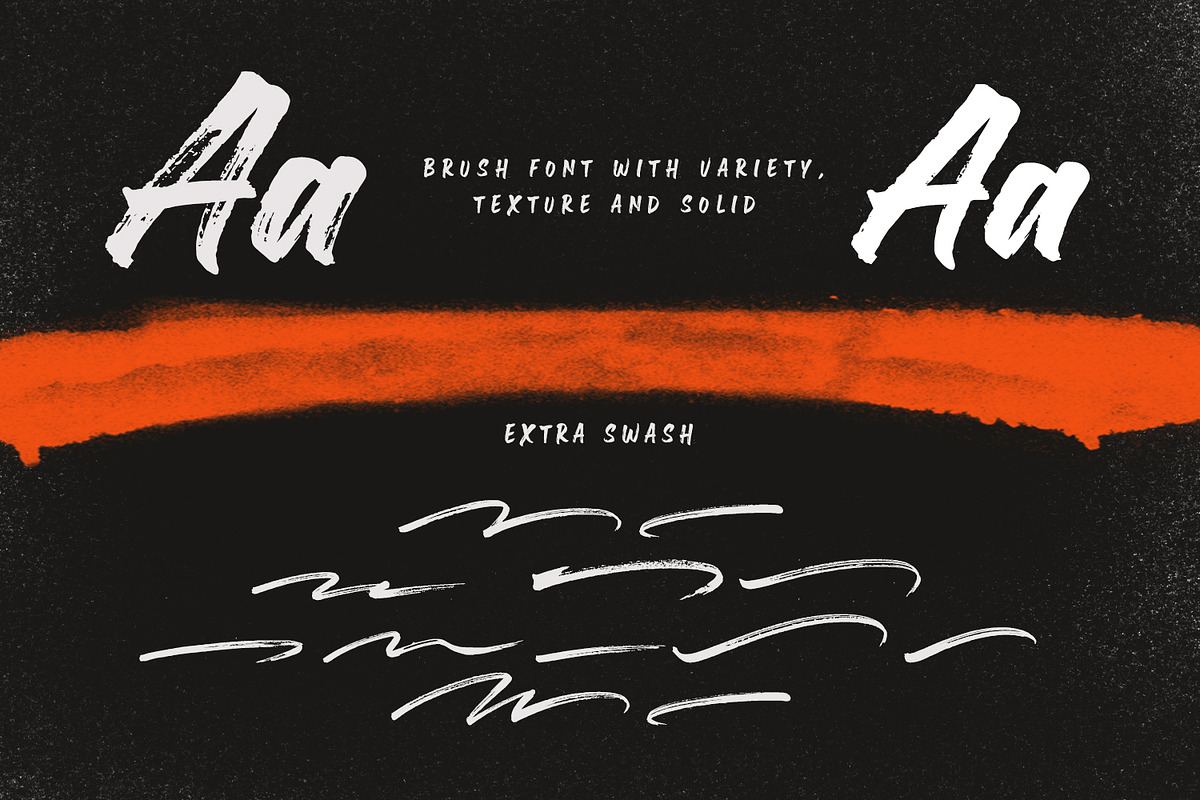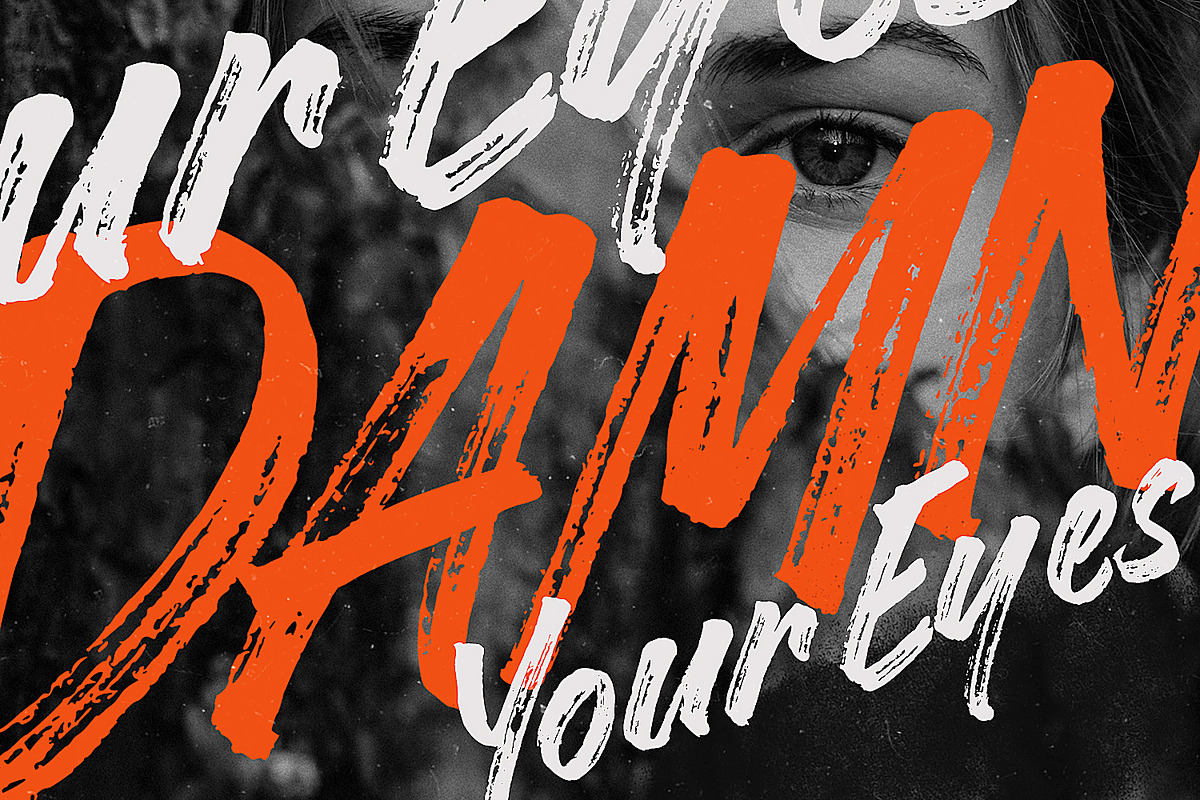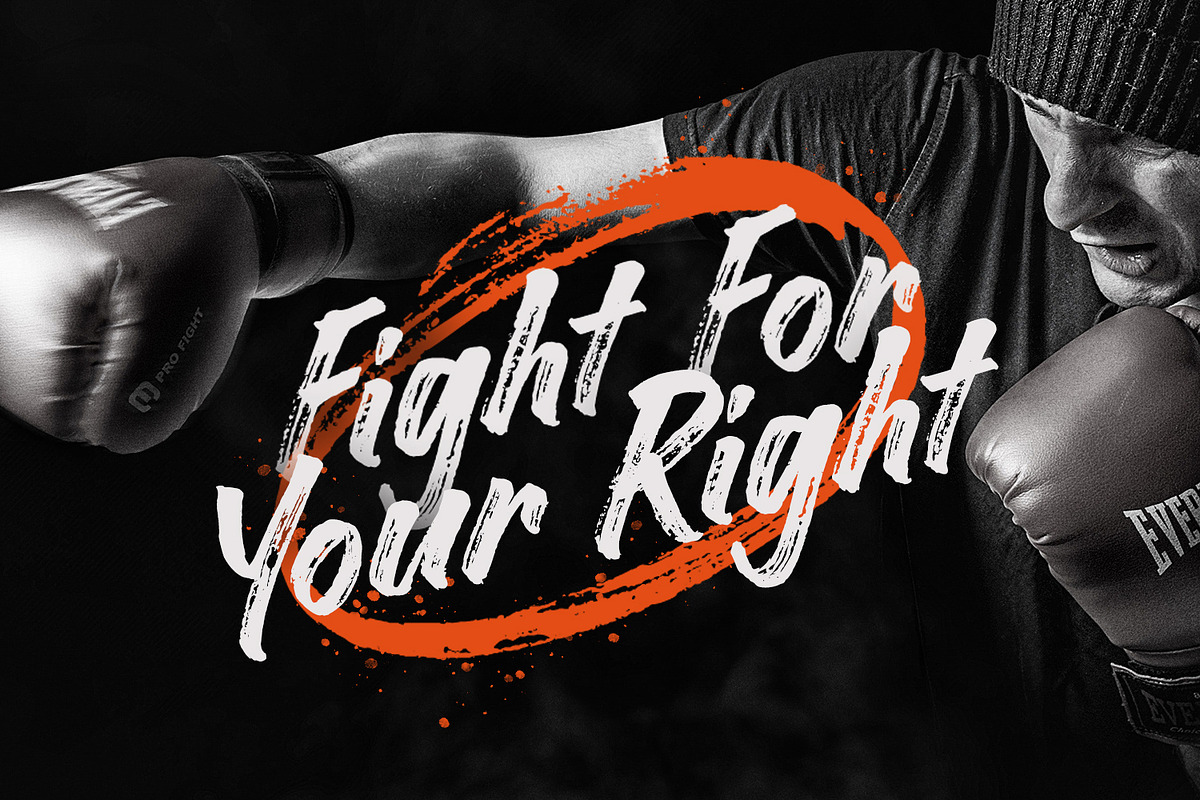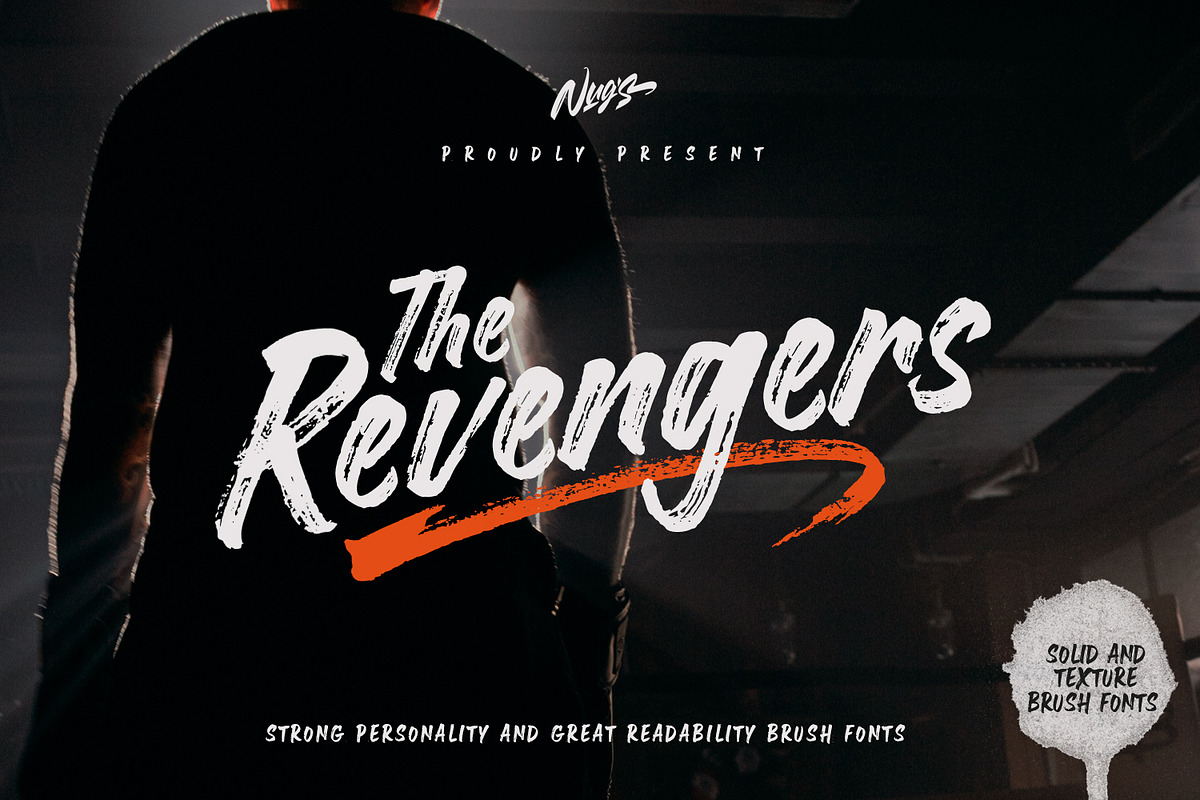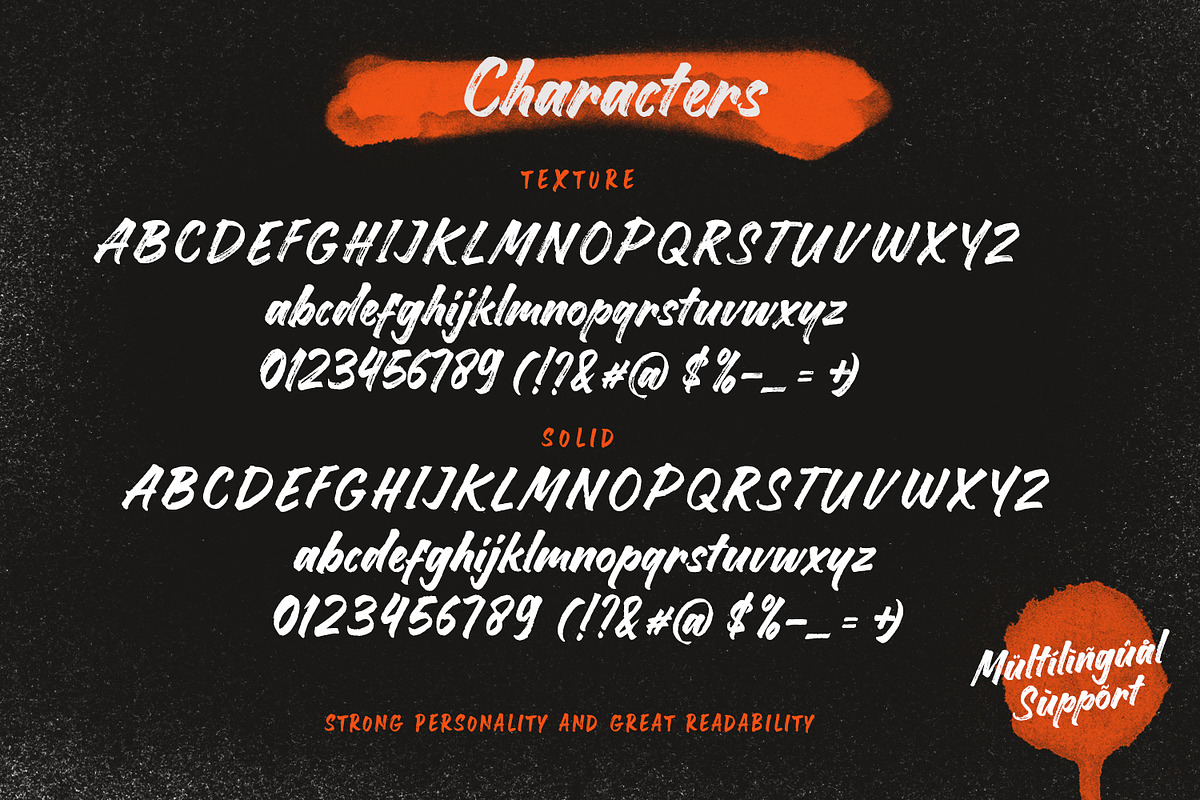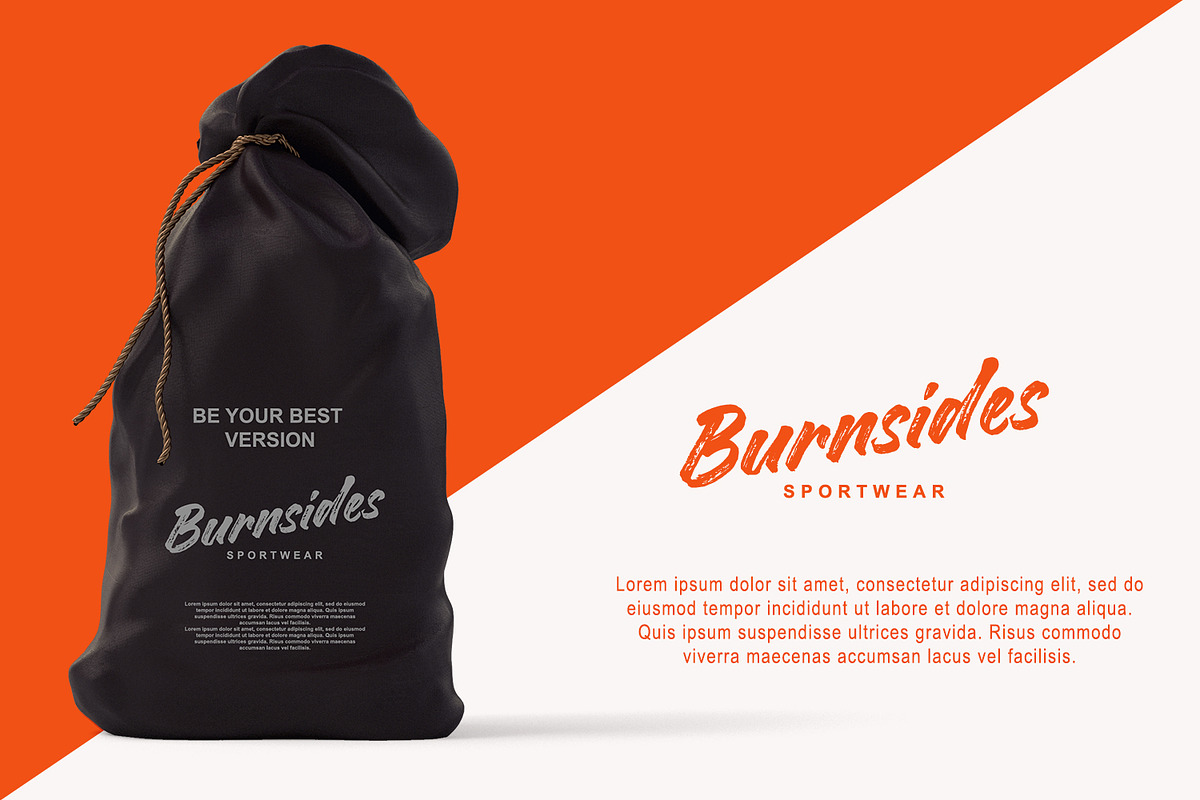
The Revengers
A Script brush Font with authentic dry brush strokes drawn on paper. Perfect for logo designs, poster design, social media, typographic quotes over photos, book covers and packaging design.